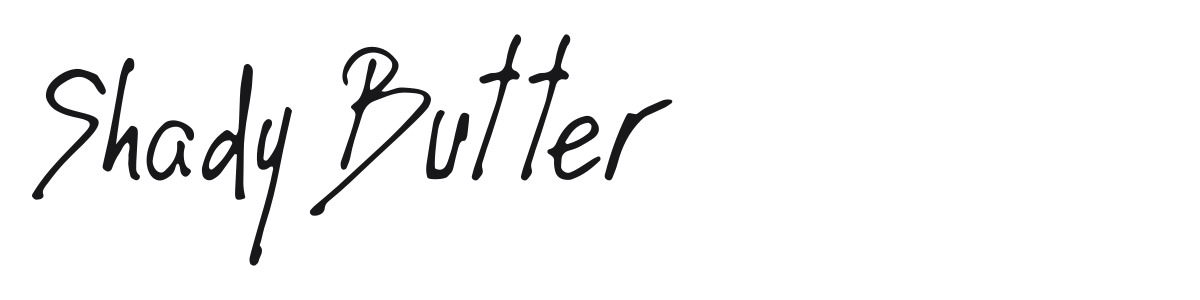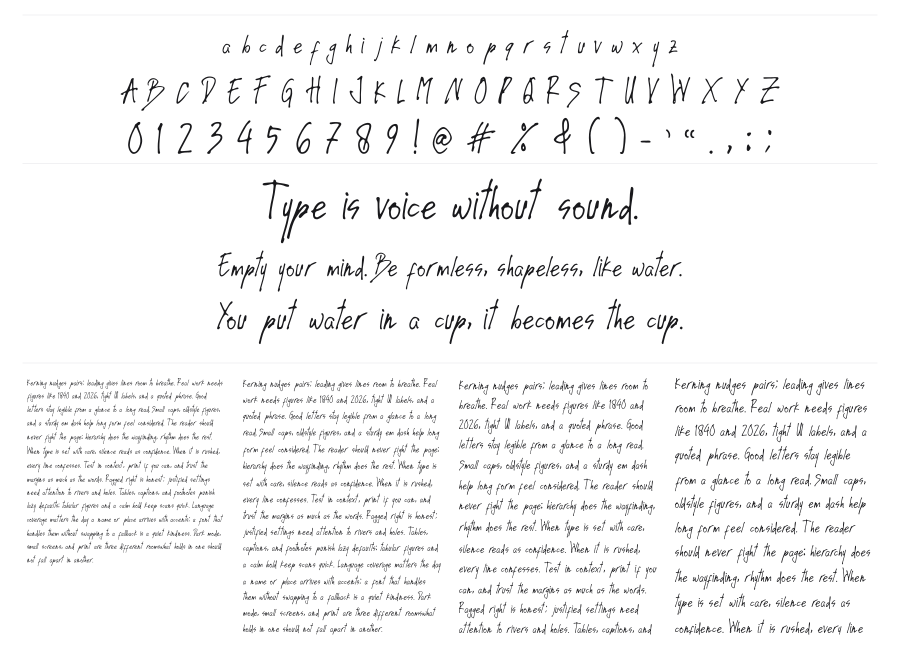
Shady Butter
Shady Butter is a casual handwritten script that looks like it was jotted down with a thin felt-tip pen in a relaxed moment. The slight irregularity in letter height and baseline gives it genuine handmade warmth rather than a polished imitation of it. It works well at large sizes for titles, labels, and any project that needs a personal, unpretentious touch.